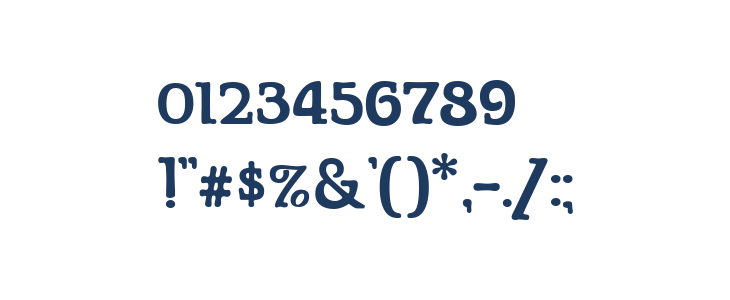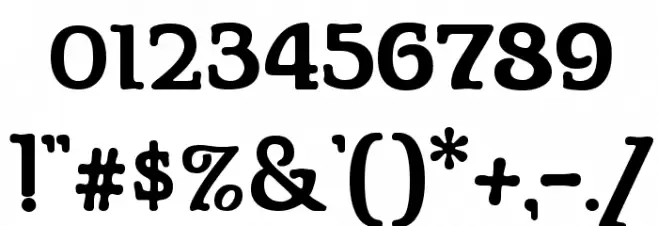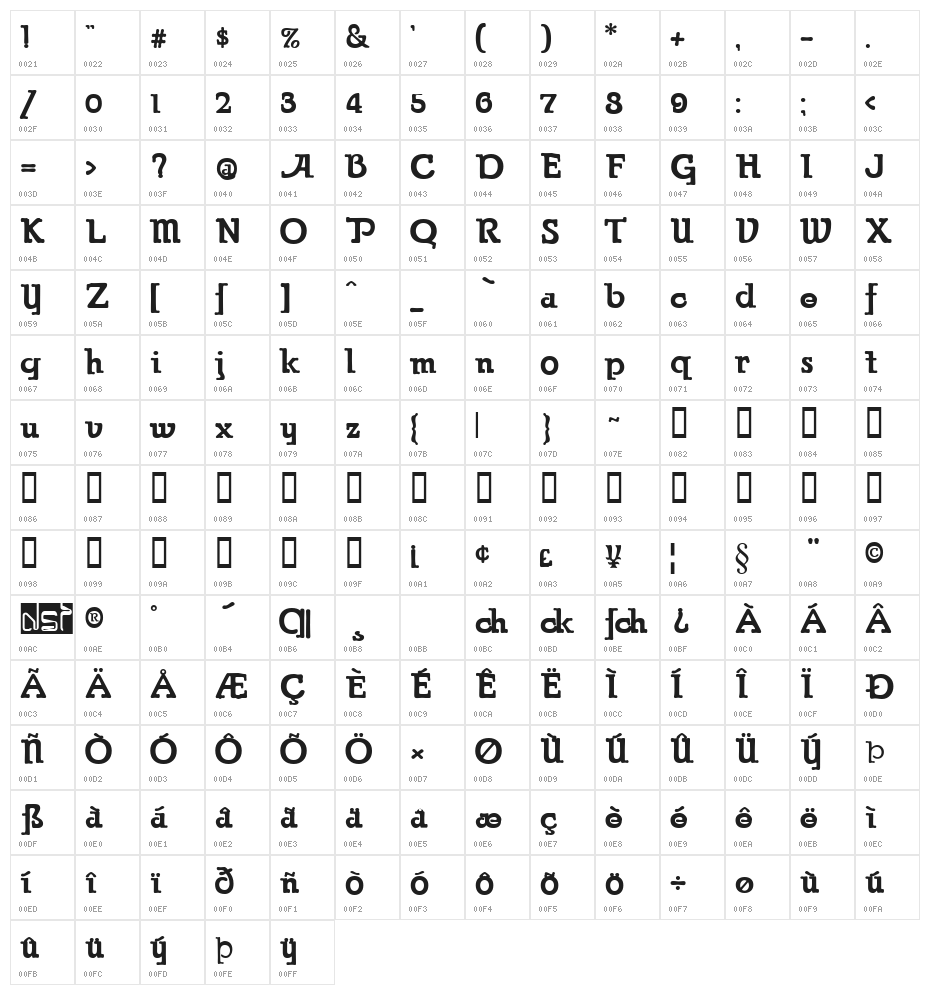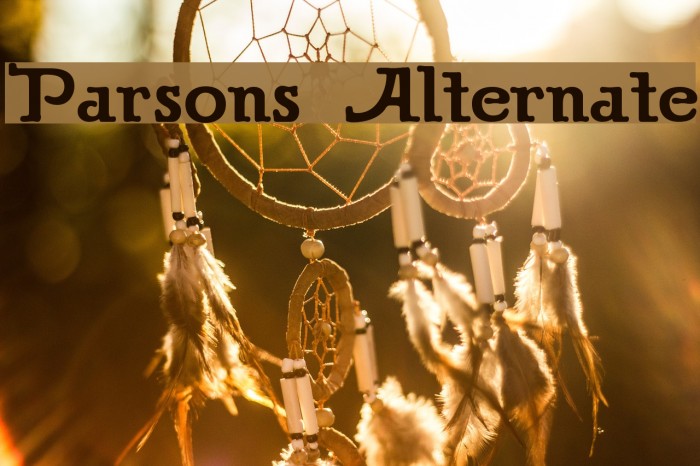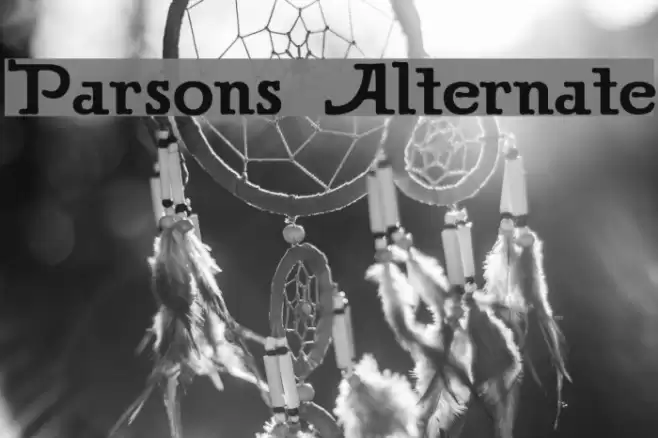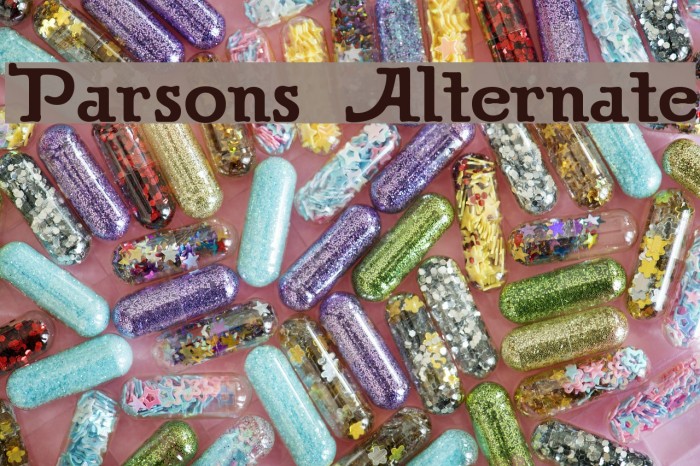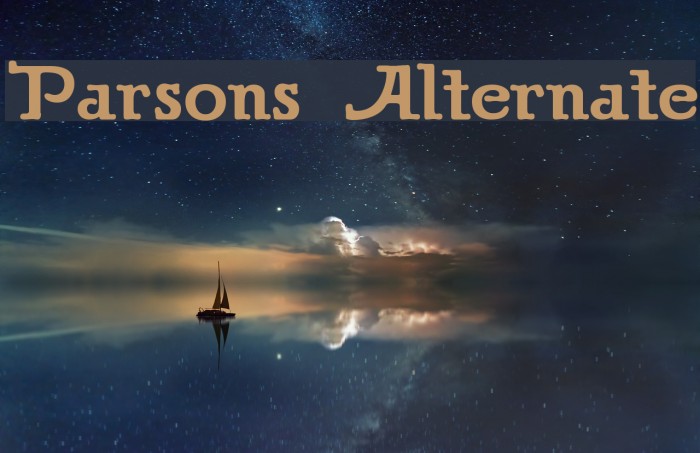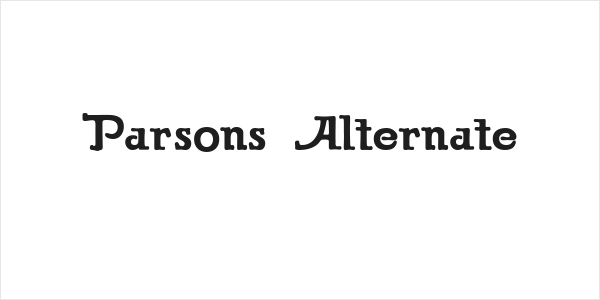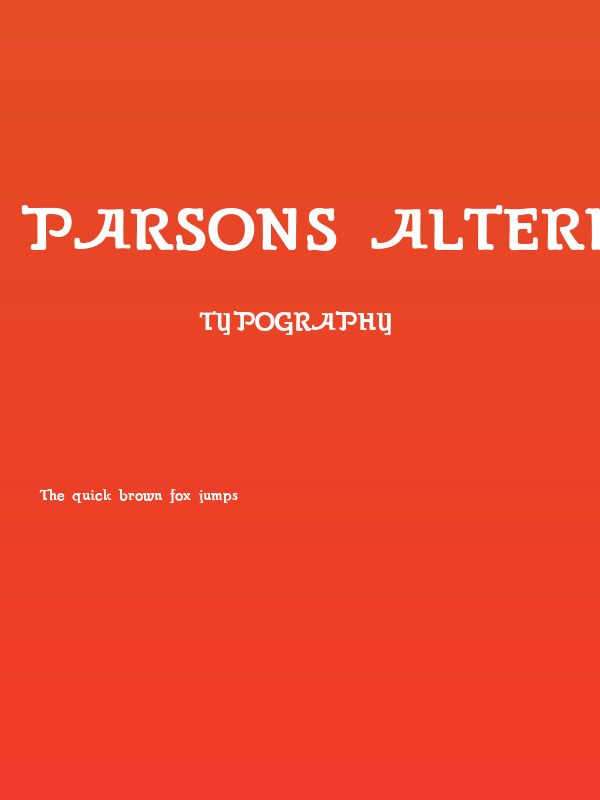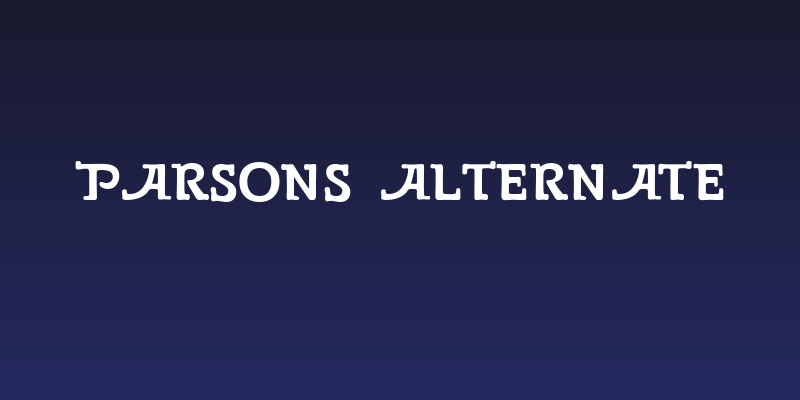
Parsons Alternate Font
Parsons Alternate Description
This font features a unique blend of vintage and modern aesthetics, characterized by its bold and rounded serifs. The letters exhibit a playful yet structured form, with a slight curvature that adds a touch of whimsy. The uppercase letters stand tall with a consistent height, while the lowercase letters maintain a harmonious balance, offering a smooth reading experience. Numbers are clear and distinct, matching the overall style of the alphabet. Special characters are well-integrated, maintaining the font's cohesive look. This font's design is both eye-catching and versatile, making it suitable for a variety of creative applications.
| Proposed Projects | Ideal for branding, packaging, posters, and editorial design projects that require a touch of vintage charm. |